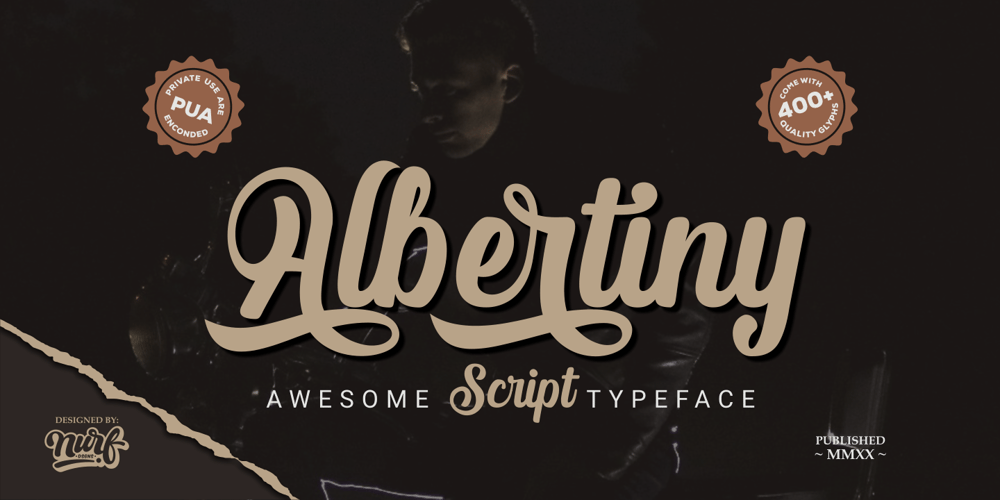
Albertiny Font Family was designed by Nur Faidin and published by Nurf Designs. Albertiny contains 1 styles and family package options. Albertiny comes with an awesome look and has a variety of alternative characters. Albertiny is the perfect fit for all of your logos, branding, social media, and crafty DIY projects. It has OpenType features (alternates, swash, ligature) that can help you find different sensations with each use.